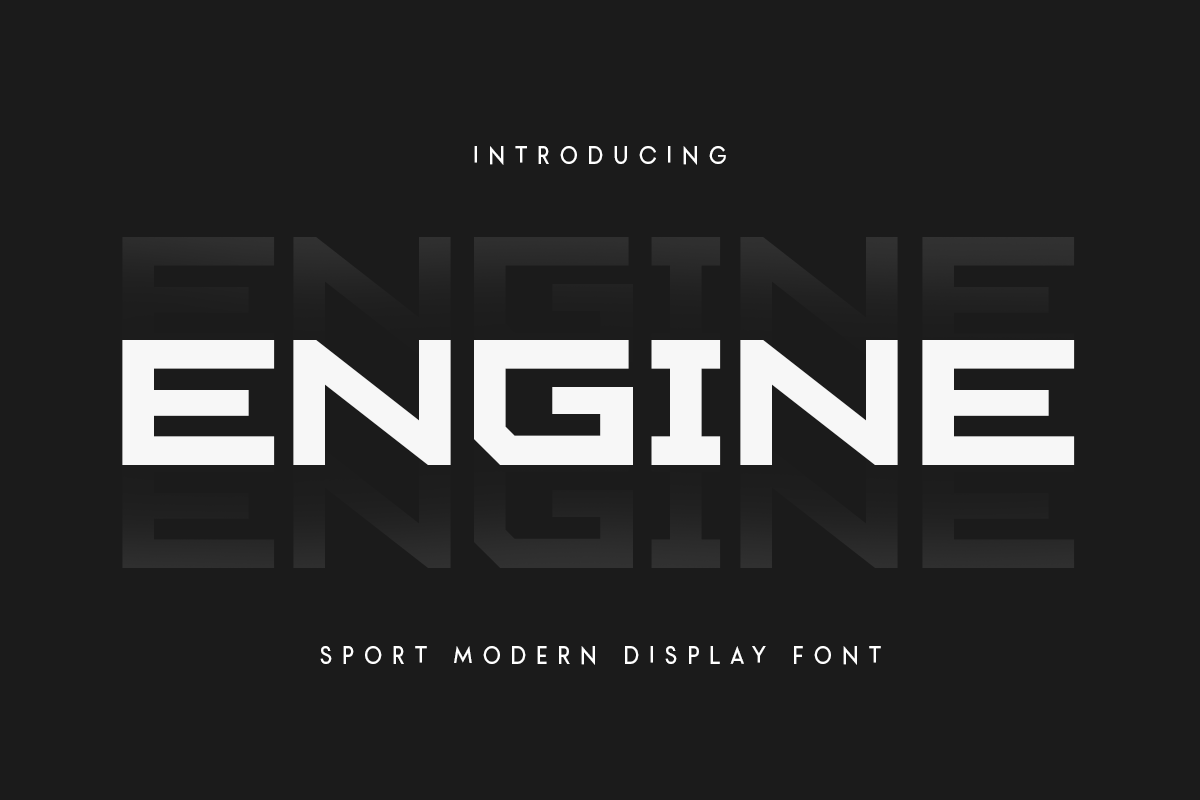
Engine - Sport Modern Font
Engine is a Sport Modern Font that created special for Branding, Title and more stand out typography for sport and action. It's so perfect to add your style and headline overview for sport, technology, actions, and fighting theme. And specially for this font, we crafted for bold action style and modern feels so enjoy to create any project that will show your main idea out.
Engine Sport Modern Font ready with:
- Creative characters prepared to get best results
- Ready with All Uppercase characters